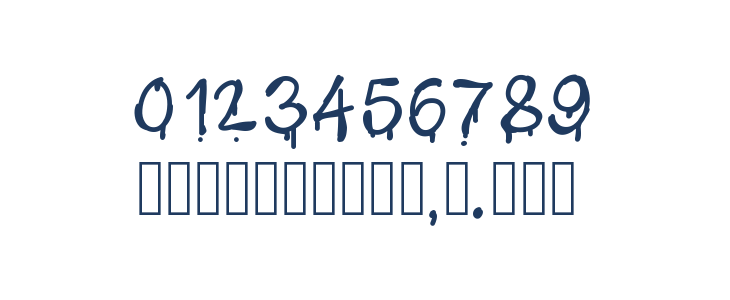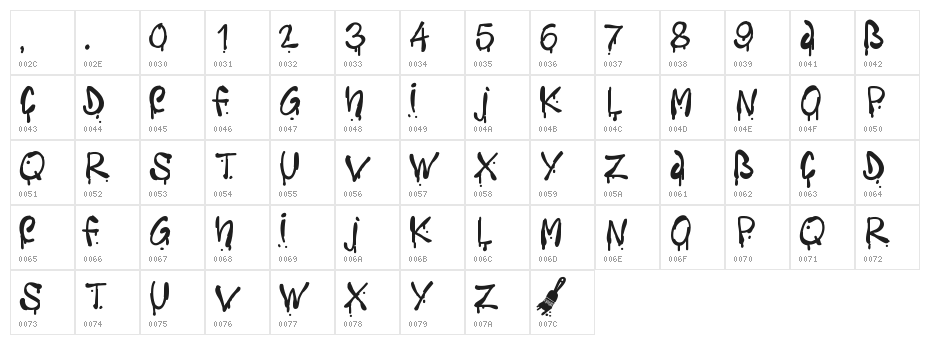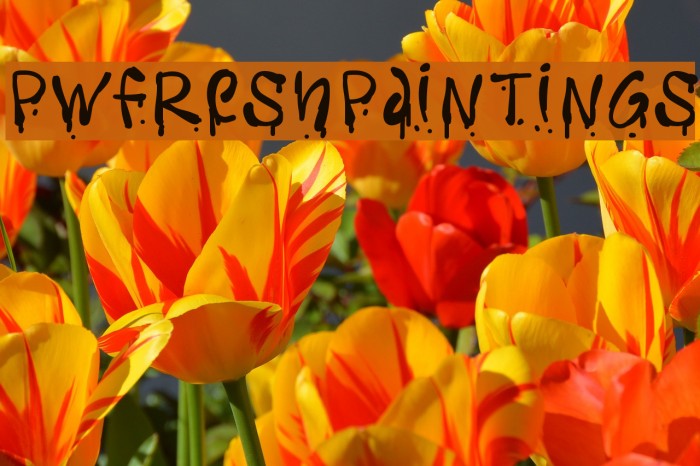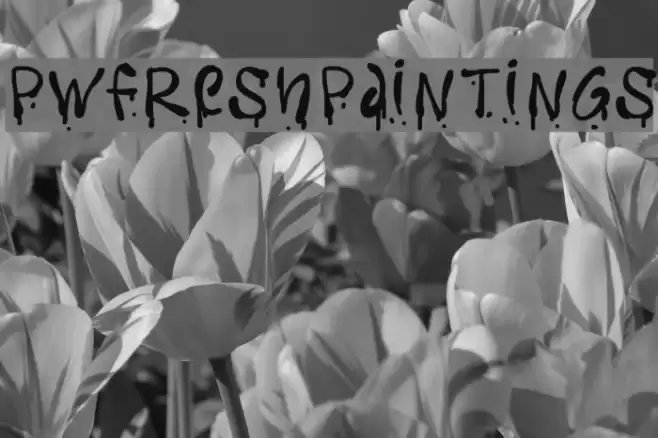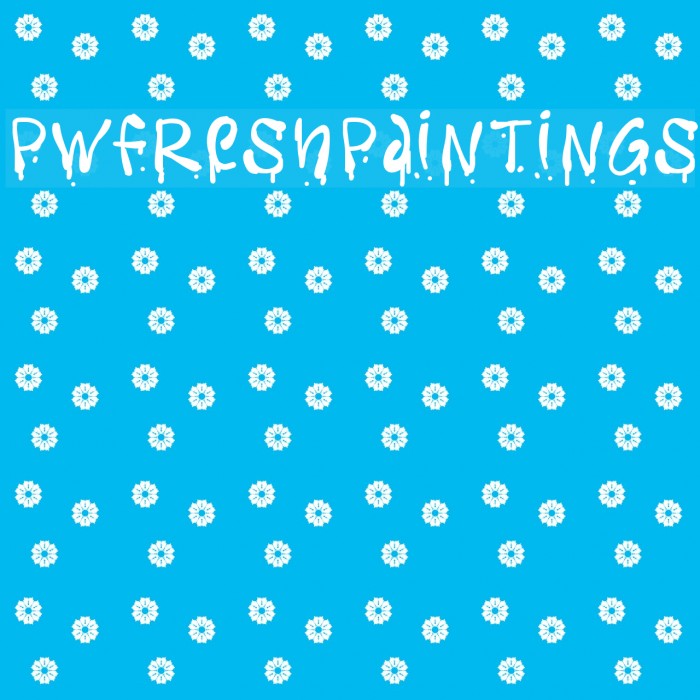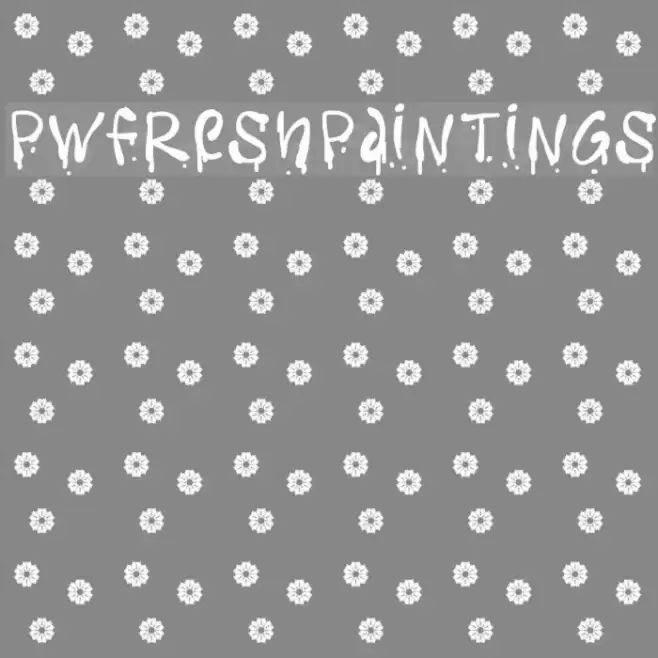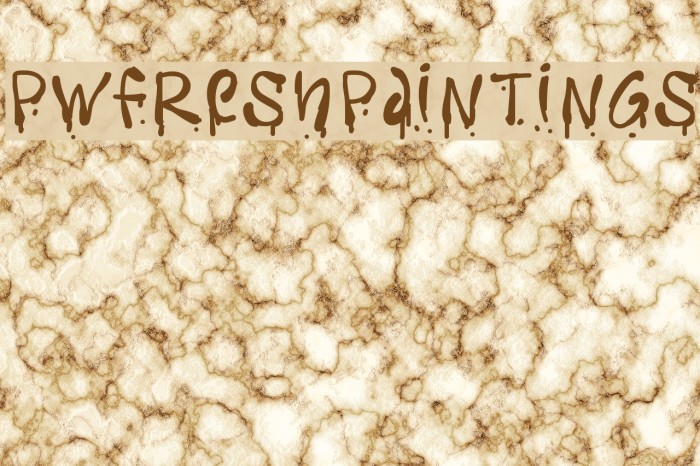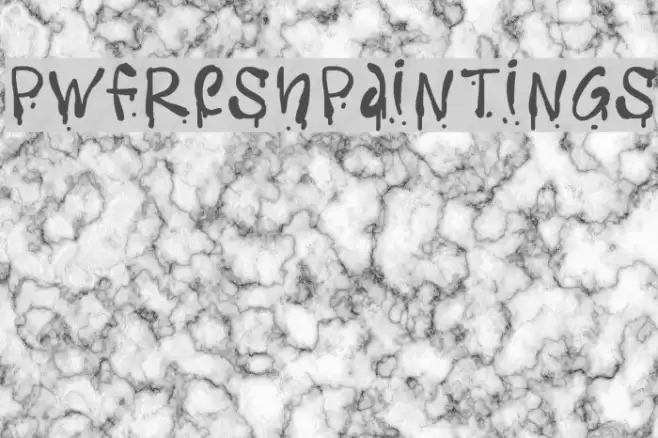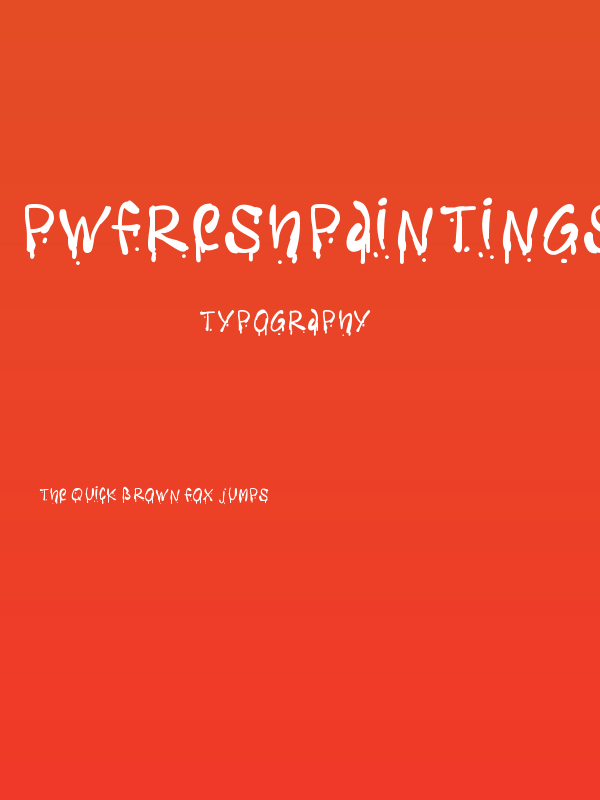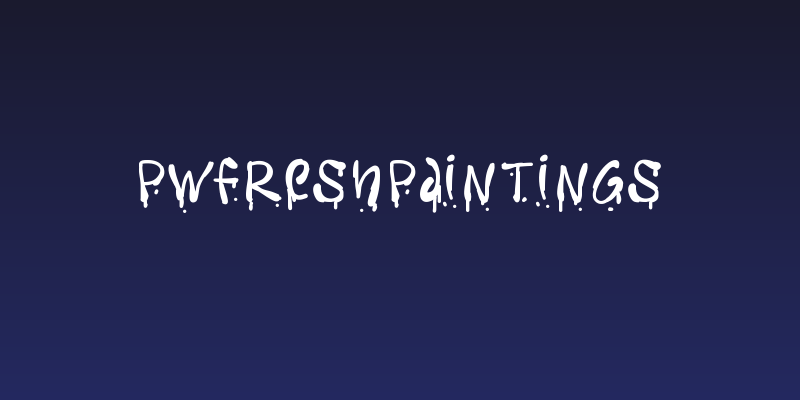
PWFreshpaintings Font
PWFreshpaintings Description
This font features a unique, artistic style that mimics the appearance of dripping paint. The characters are bold and expressive, with a playful yet edgy aesthetic. Each letter appears as if it has been hand-painted, with varying stroke thicknesses and subtle irregularities that add to its charm. The uppercase and lowercase letters maintain a consistent style, while the numbers and special characters complement the overall design. This font is perfect for projects that require a creative and unconventional look, such as art-related branding, posters, or album covers.